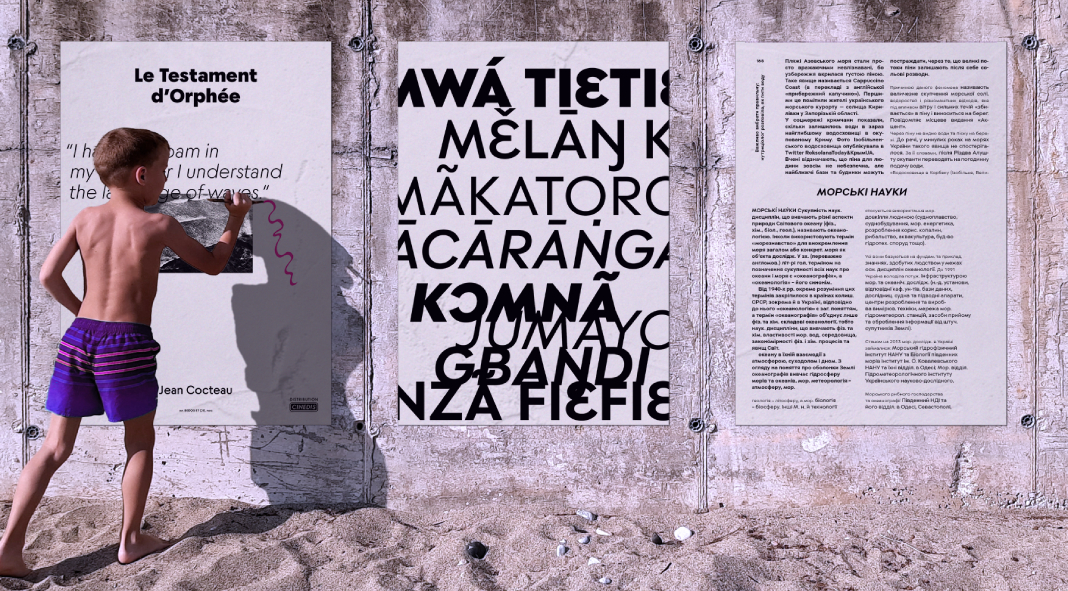
Introducing Moucha: a sophisticated sans-serif superfamily that offers the perfect proportions for any type of geometric design.
Philip Lammert of Vibrant Types proudly published the Moucha font family in March 2023, offering two distinct styles – Moucha Vintage and Modern. With a variable font that provides all intermediary variants and the precise midpoint with Moucha X, this superfamily is an ideal typography toolbox for pairing fonts together to produce sleek results not typically found in Grotesque typefaces.
From the more than 2100 glyphs (1538 characters) of Moucha fonts, 619 Latin, Cyrillic, and Greek languages are supported – offering a vast European character set but also essential characters for small minority groups worldwide. A mere 1% of font families worldwide can boast this level of language support – an incredible 3.5 billion first-language speakers in total!
Let’s discuss Moucha subgenres! This typeface offers a didactic element, providing typographic education by displaying the different proportional spectrums of Latin geometric sans-serifs in its classification system. How does it work? All font family variants share circular characters such as o, b, or d; however, rectangular-based characters (e.g., n, h, or u) differ within each variant according to their widths. As an example of this genre prototype—Moucha Vintage boasts a rhythmically classic look with slimmed down “n” and unique uppercase proportions that ordinarily can be found on fonts like Futura®.
Moucha Modern features a uniform, steady appearance with the united character lengths of its contemporary variety. With 42 fixed fonts and their own upright plus italic variable fonts for enhanced concentration in design projects, Moucha X is an intermediary family between the two extremes. Additionally, through its superfamily’s two variable fonts that make all intermediate points available between each extreme point, Moucha enables access to an array of solutions.